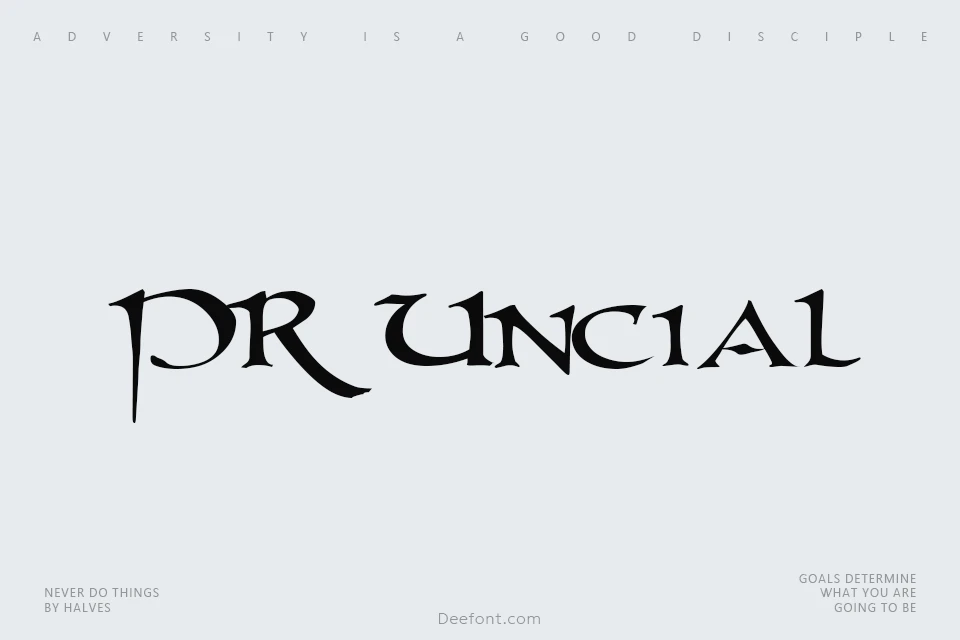
PR Uncial Font
PR Uncial Font is an elegant display typeface designed by Peter Rempel that combines Gothic and Celtic influences. This distinctive font features a semi-light weight and expanded width, creating a commanding yet refined presence. It’s particularly effective for display work at sizes 24 points and above, making it ideal for headers, titles, and decorative text. The font includes alternate capitals and supports multiple languages, offering versatility in design applications. While free for personal use, it requires a modest license fee for commercial applications. Its unique blend of historical uncial letterforms with modern design sensibilities makes it an excellent choice for projects requiring both authenticity and readability.